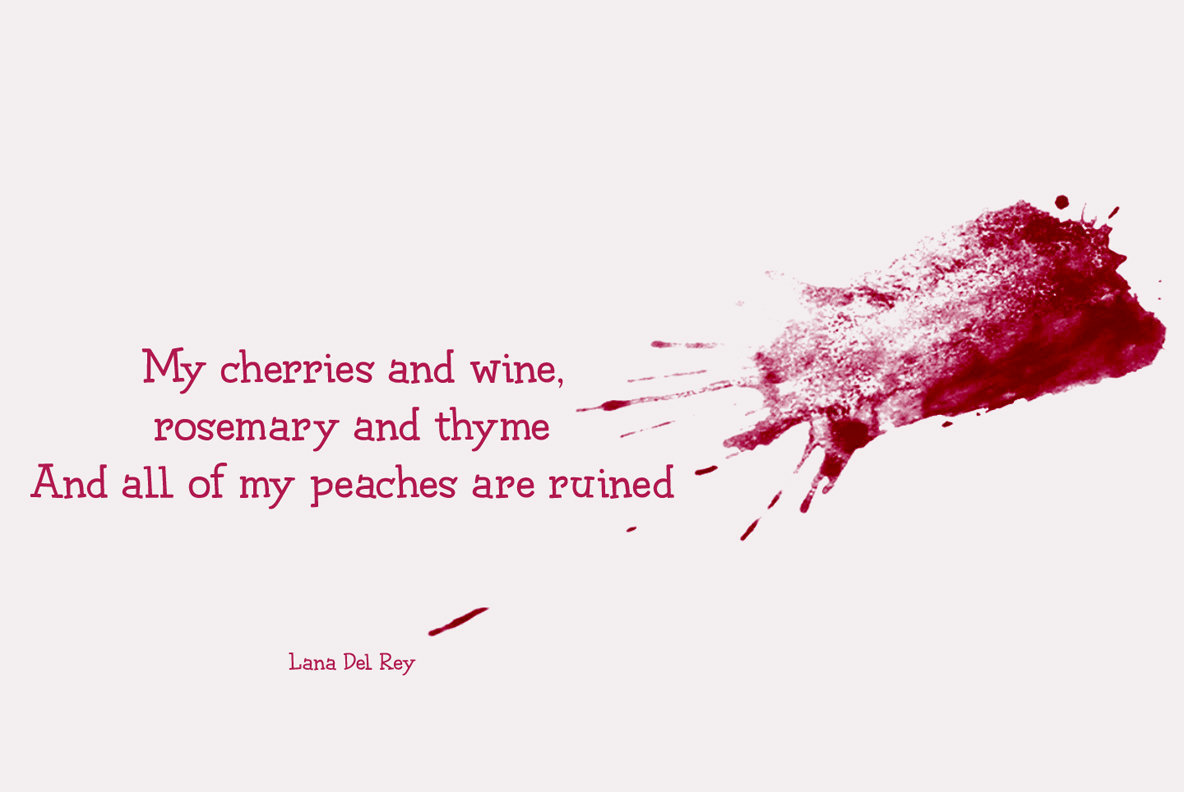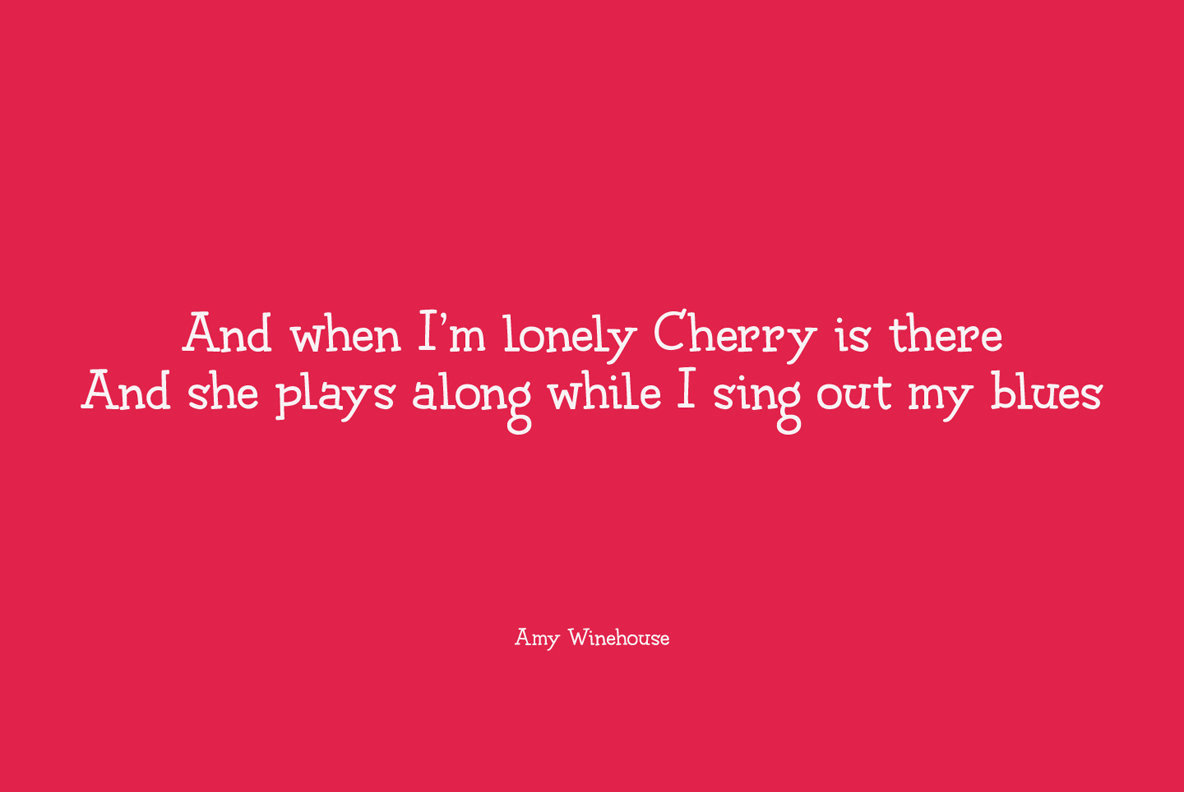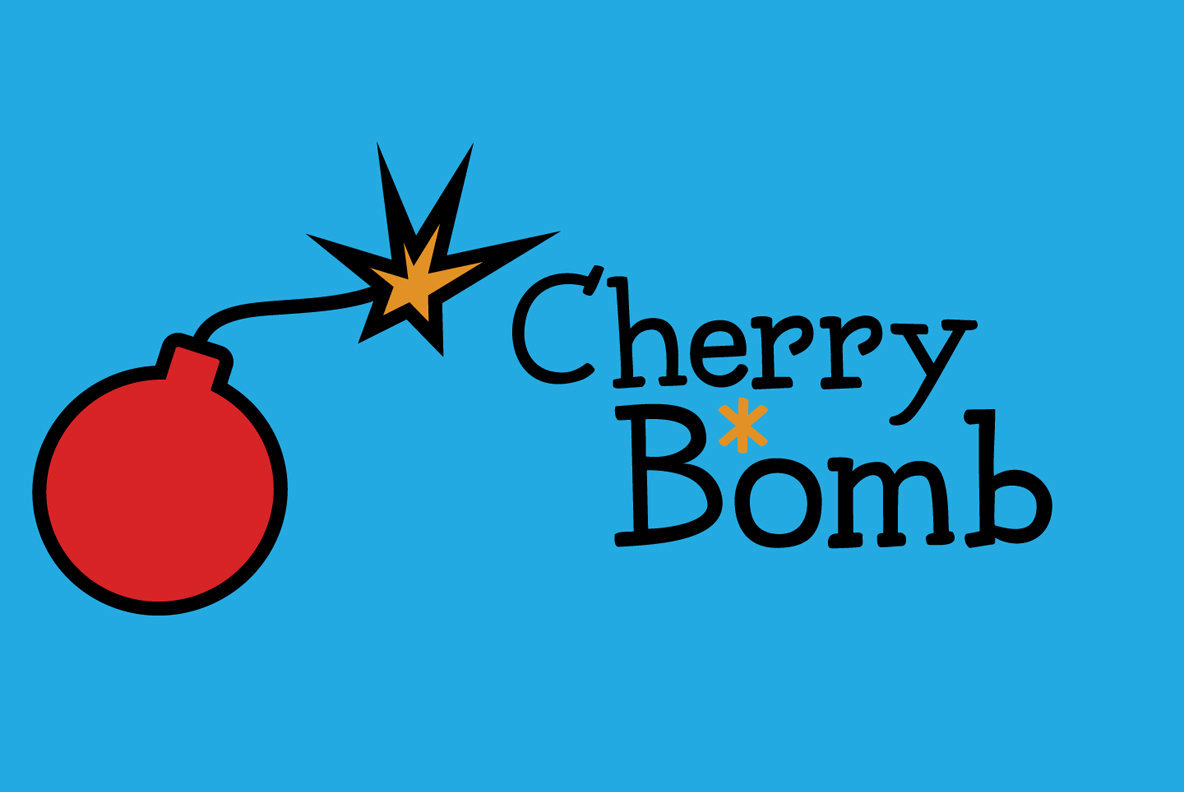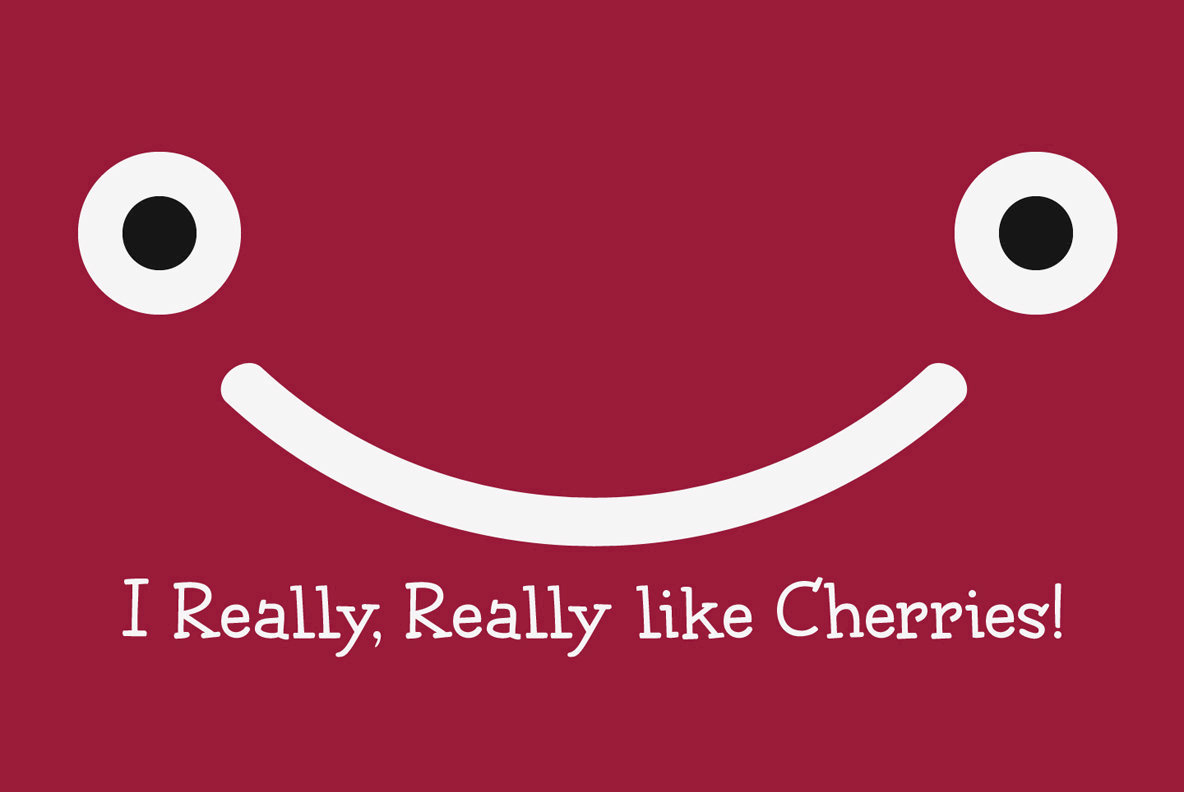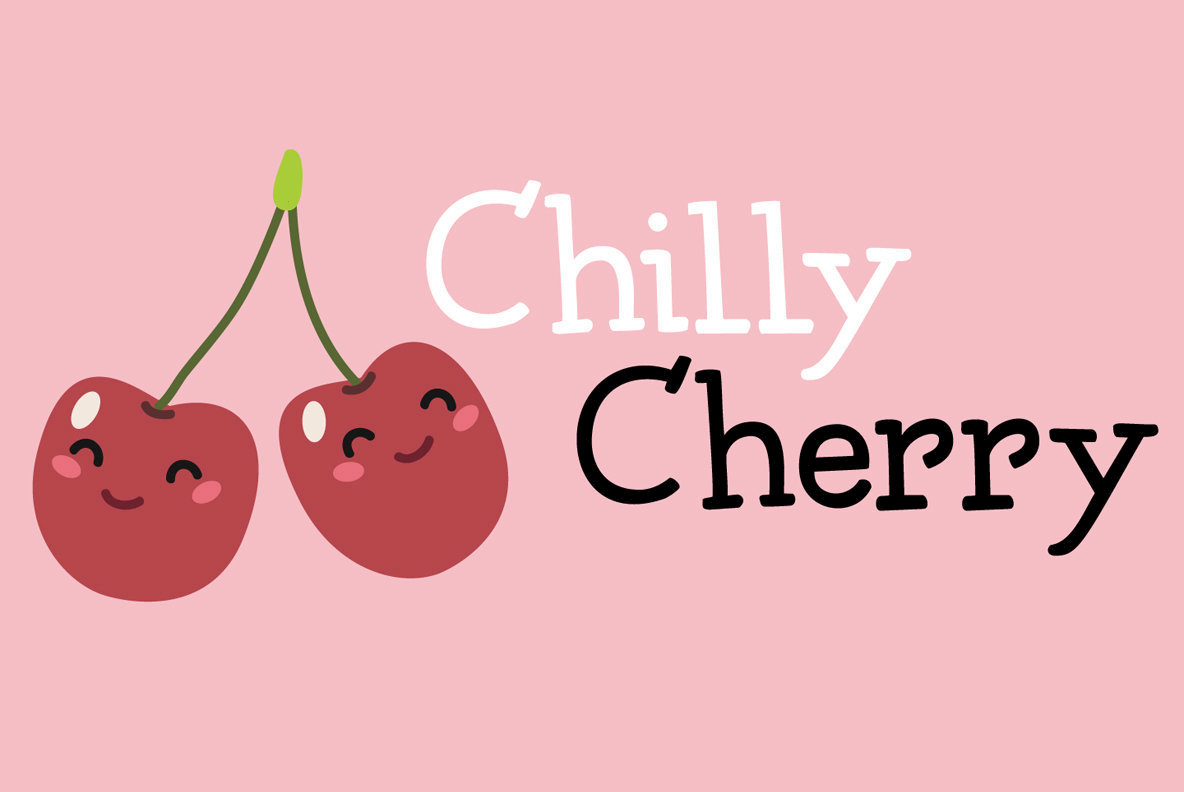
Chilly Cherry Font Family
It’s cherry season, so I bought 2 kilos of cherries at the local cherry farm. The cherries I bought had been in a cooling cell, so they were quite cold. As I was eating them, the name for this new font popped up!
Chilly Cherry is a handmade serif. It’s a little wobbly, a little off-center, but it will surely put a smile on the cherry lips of your customers.